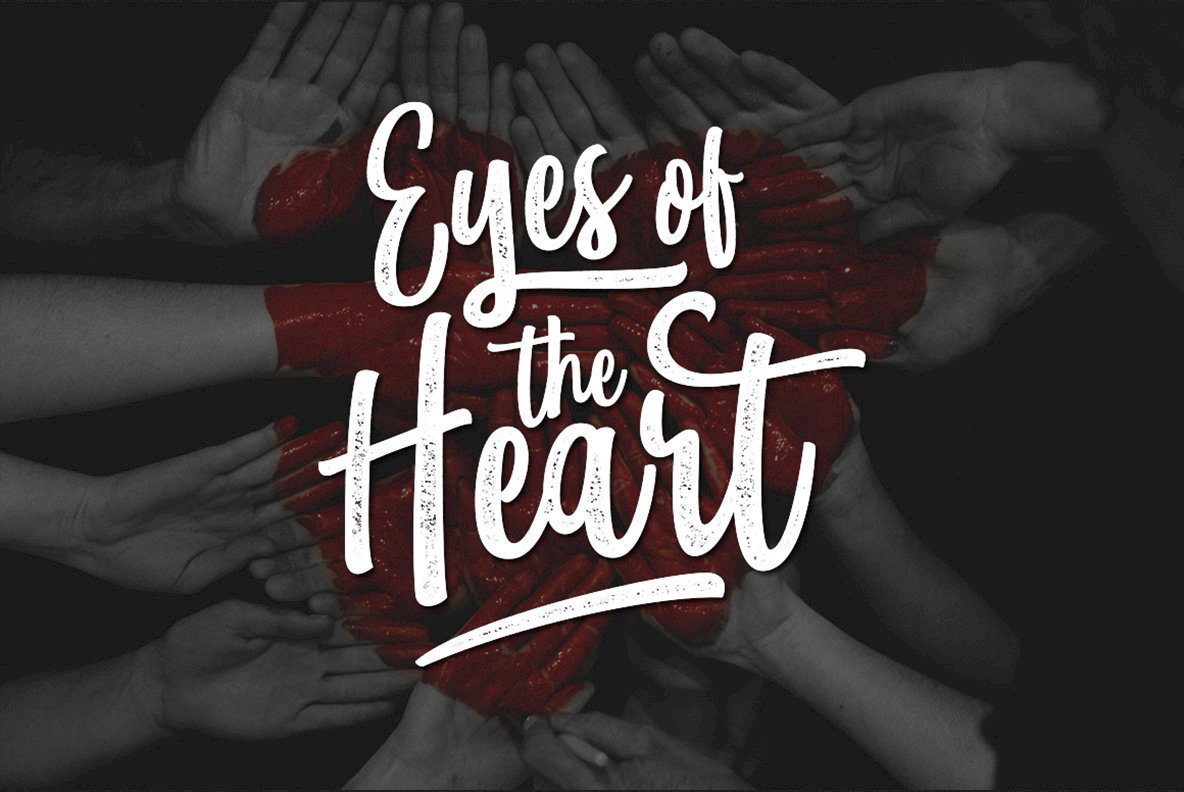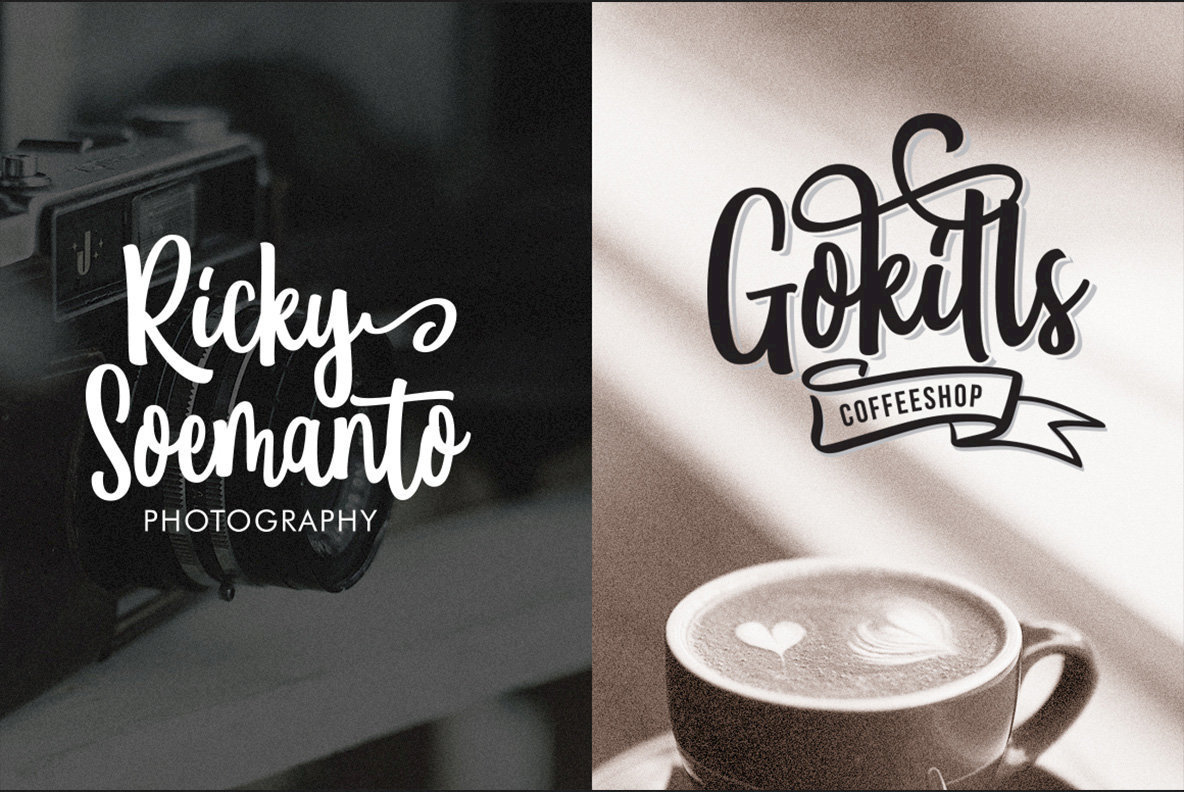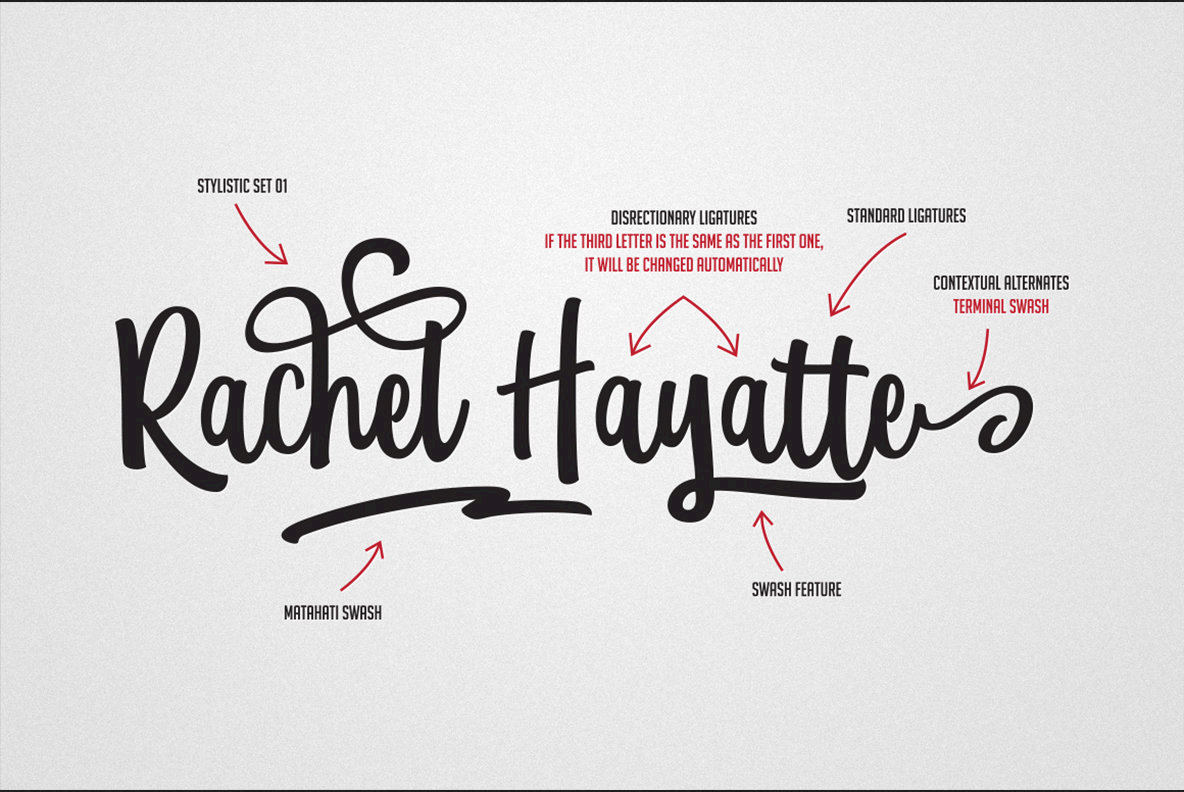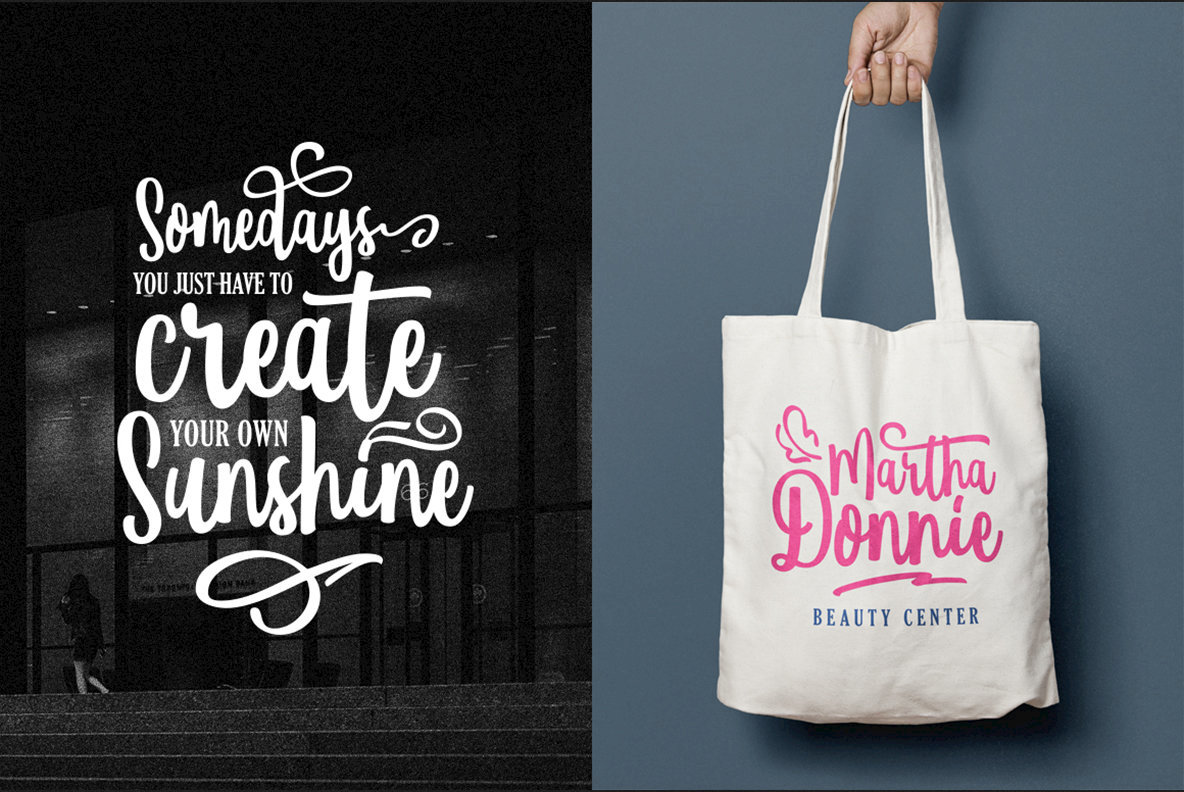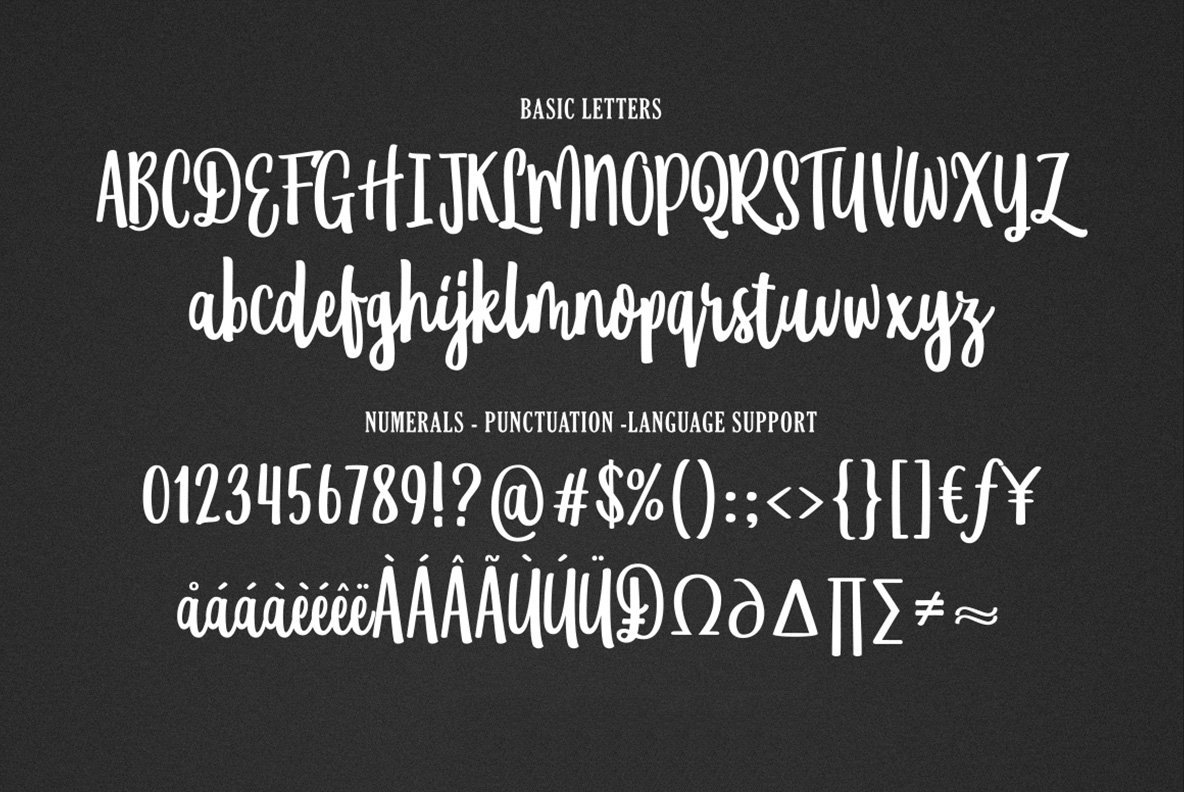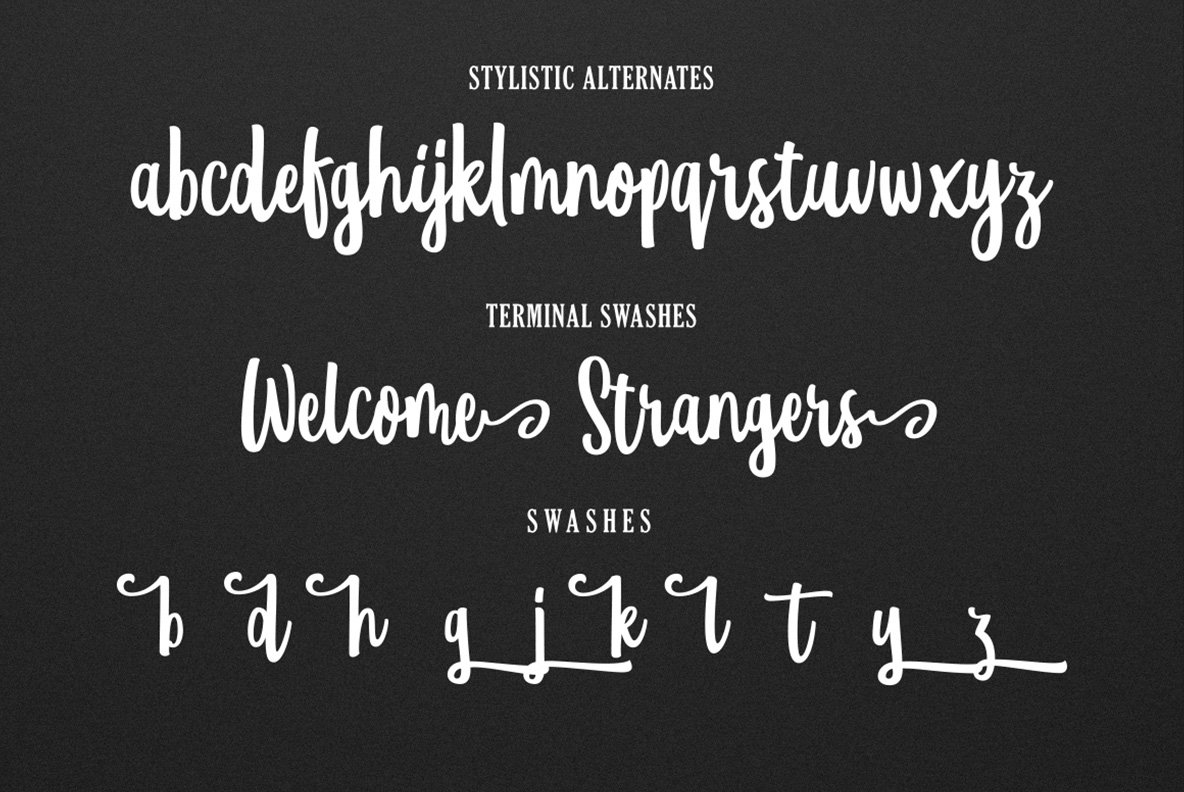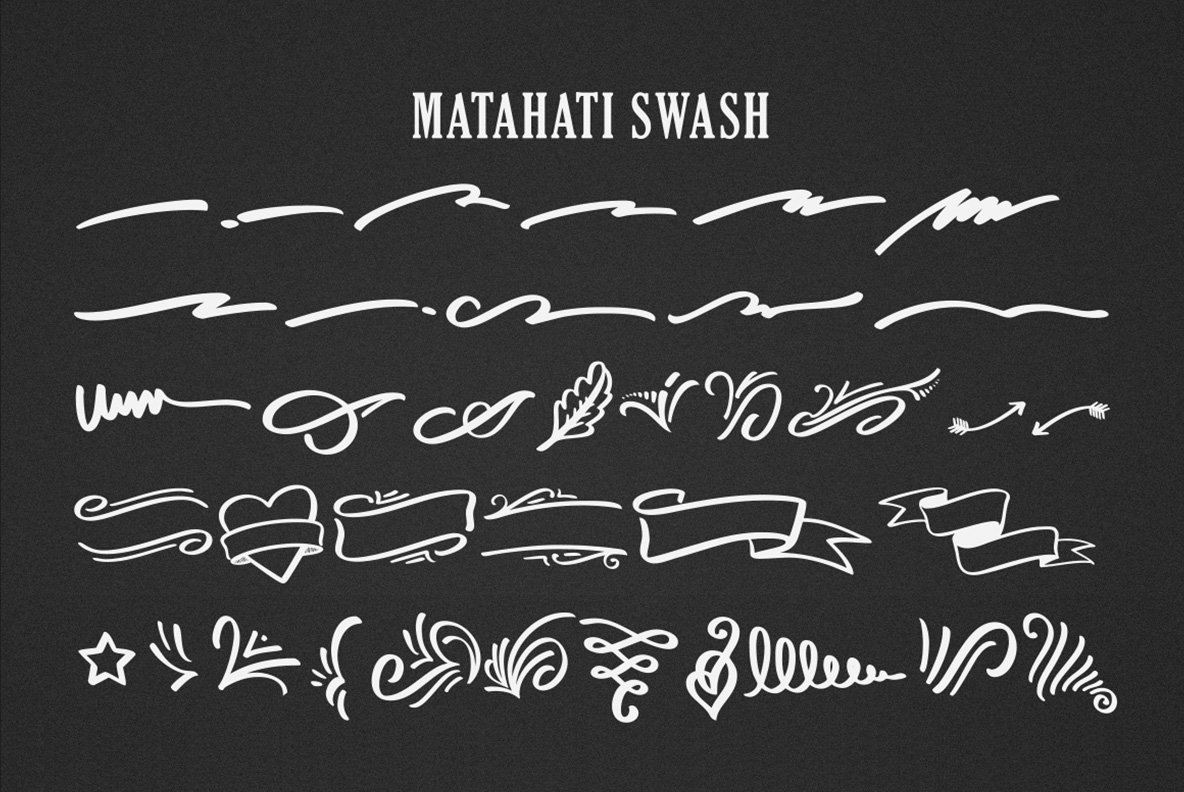
Matahati Font
Matahati
Matahati Slant
Matahati Swash
Matahati is a script font that is created based on a modern calligraphic style. Containing characters that are charming and playful, Matahati is also loaded with numerous OpenType features to help extend your design options.
- Standard Ligatures
- Stylistic Alternates
- Contextual Alt (Terminal Swashes)
- Regular Swashes
- Stylistic Set